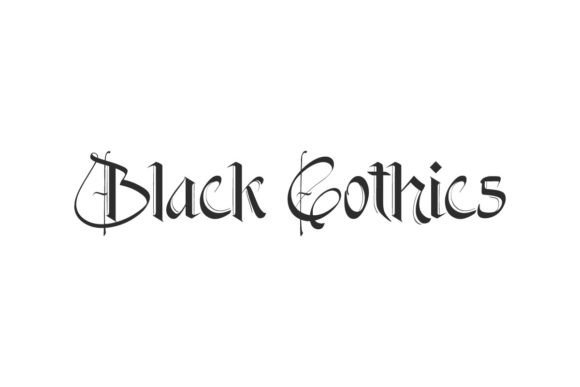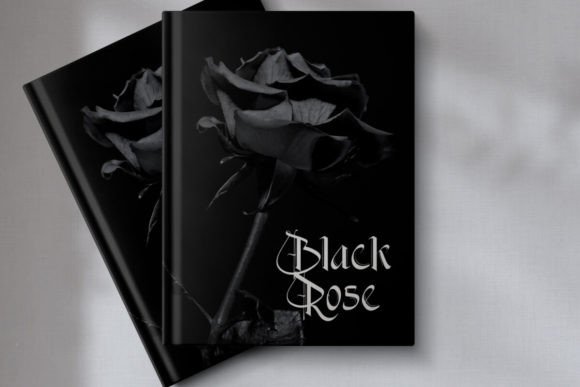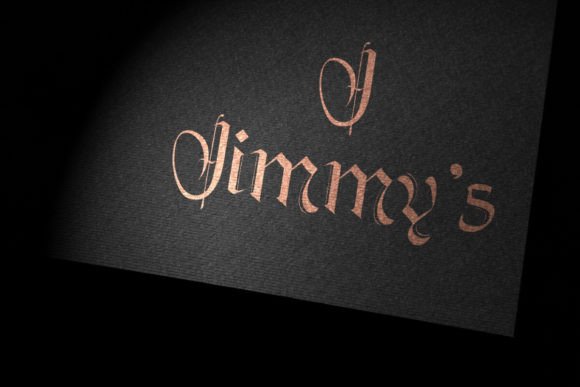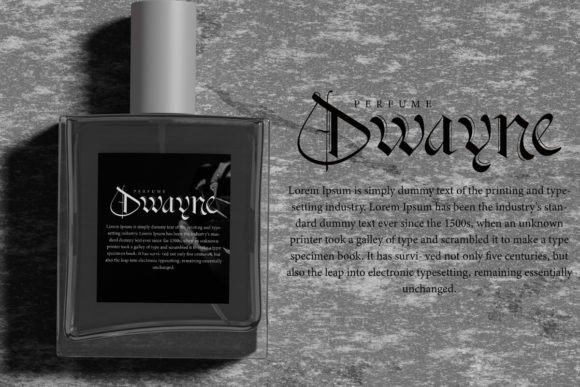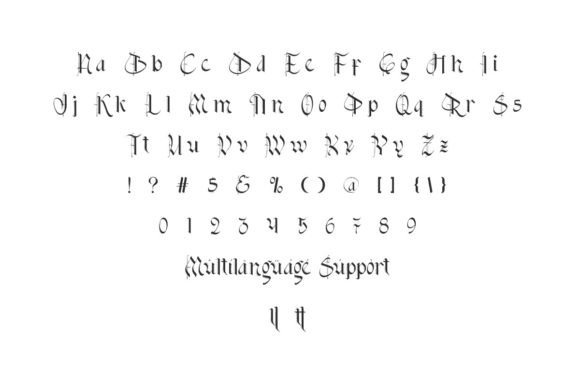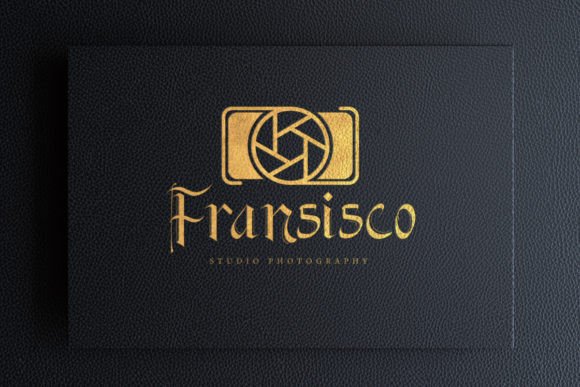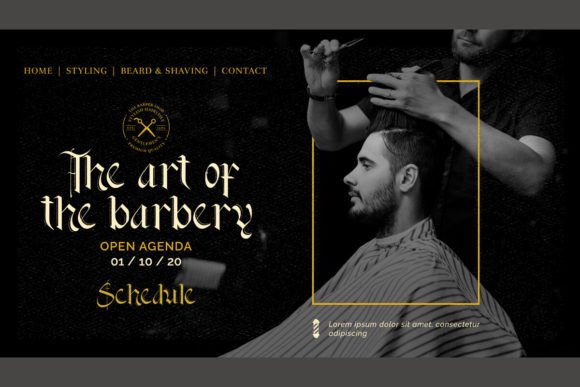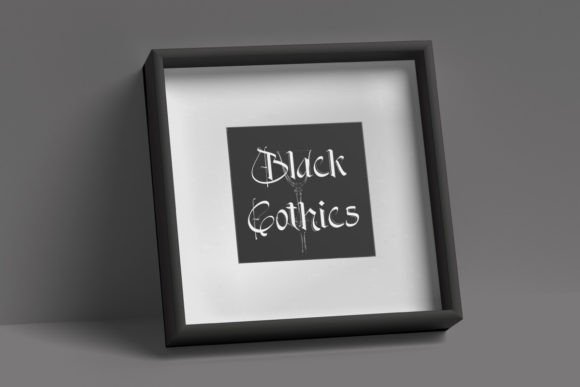
Black Gothics Font is a blackletter modern display font with gothic style. It will be able to elevate your designs to a high level, such as billboards, brand logos, brochures, business cards, covers, embossed designs, headers, invitations, labels, magazine catalogs, mockup designs, posters, product packaging, quote, screen print, signage, stationery, sticker, title, website, etc.
Black Gothics Font